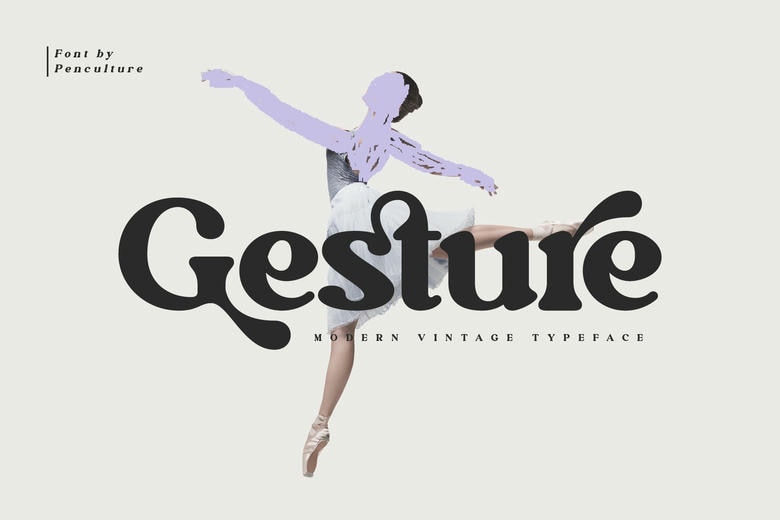
Gesture Font
Gesture is a stylish and dainty serif font. It is suitable for any projects such as: logos, branding projects, label, photography, watermark, special events, and all your other lovely projects that need a beautiful taste.
Gesture Serif Font